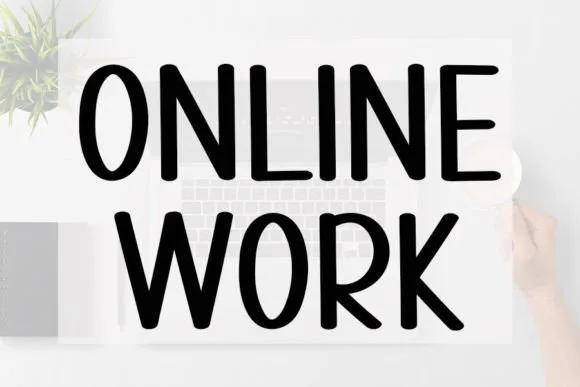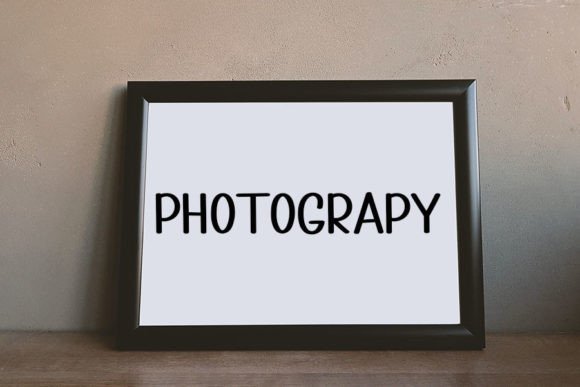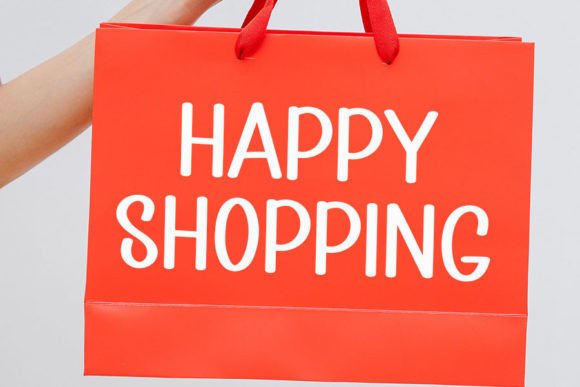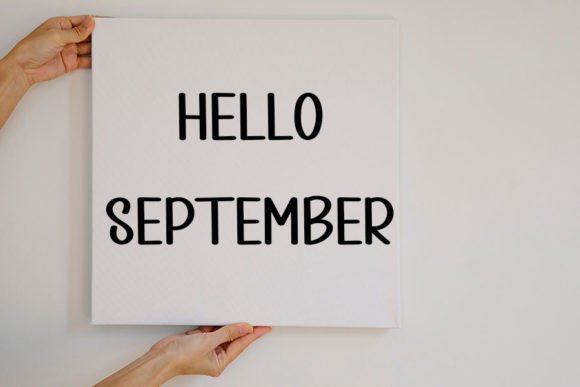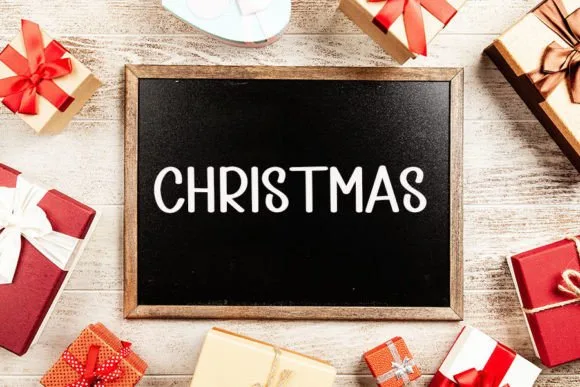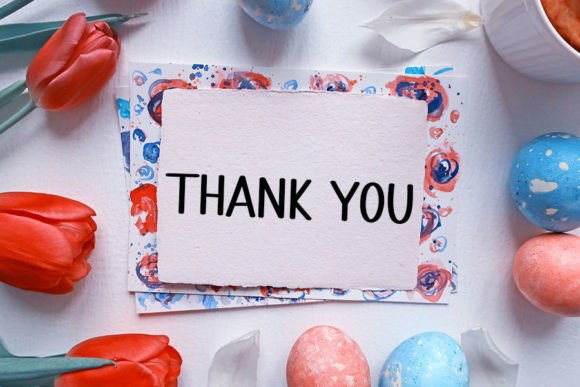
Online Work Font
Online Work Font: A Fun and Informal Handwritten Typeface
“Online Work” is a delightful handwritten font that adds fun and informality to your designs. It’s perfect for various projects, from crafting to digital design and greeting cards.
Key Features of Online Work Font
• Casual Style: Online Work combines playfulness with versatility.
• Informal Look: Adds charm and approachability to your designs.
• Versatile Use: Suitable for many projects, from digital design to presentations.
Ideal Applications
Crafting Projects
Online Work’s informal style is perfect for adding a personal touch to your craft projects.
Digital Design
Use Online Work to create engaging website headers and social media graphics that stand out.
Greeting Cards
The font’s playful nature makes it ideal for designing heartfelt greeting cards.
Why Choose Online Work Font?
Online Work is more than just a font; it’s a tool to add personality to your designs. Here’s why it stands out:
• Creates a relatable and engaging feel in your designs
• Brings a casual, handmade look to digital projects
• Versatile enough for various creative uses
By using Online Work, you open up new design possibilities. Its informal style works well in many contexts, from logo design to presentations.
If you want a font that’s casual and fun, Online Work is a great choice. It’s perfect for adding a personal touch to your work, especially for projects that need a friendly, approachable feel.
Explore how Online Work can transform your projects. From craft designs to digital presentations, this font brings a playful, informal feel to your creations.